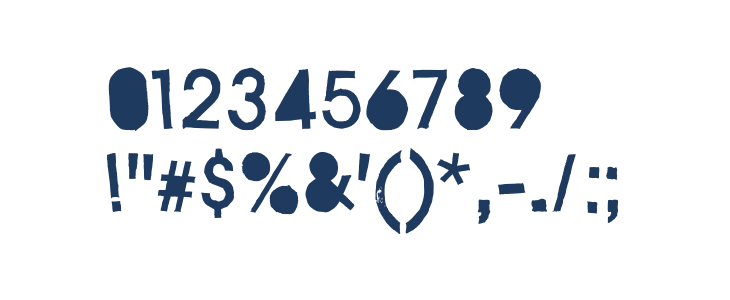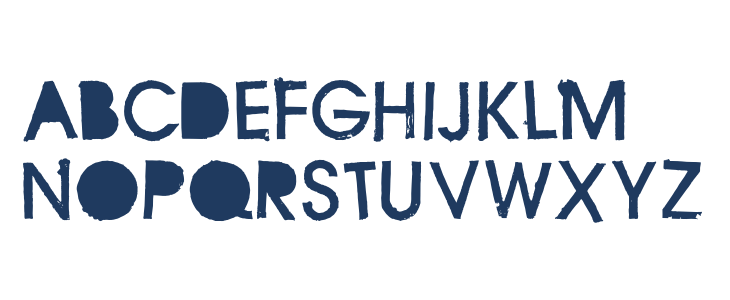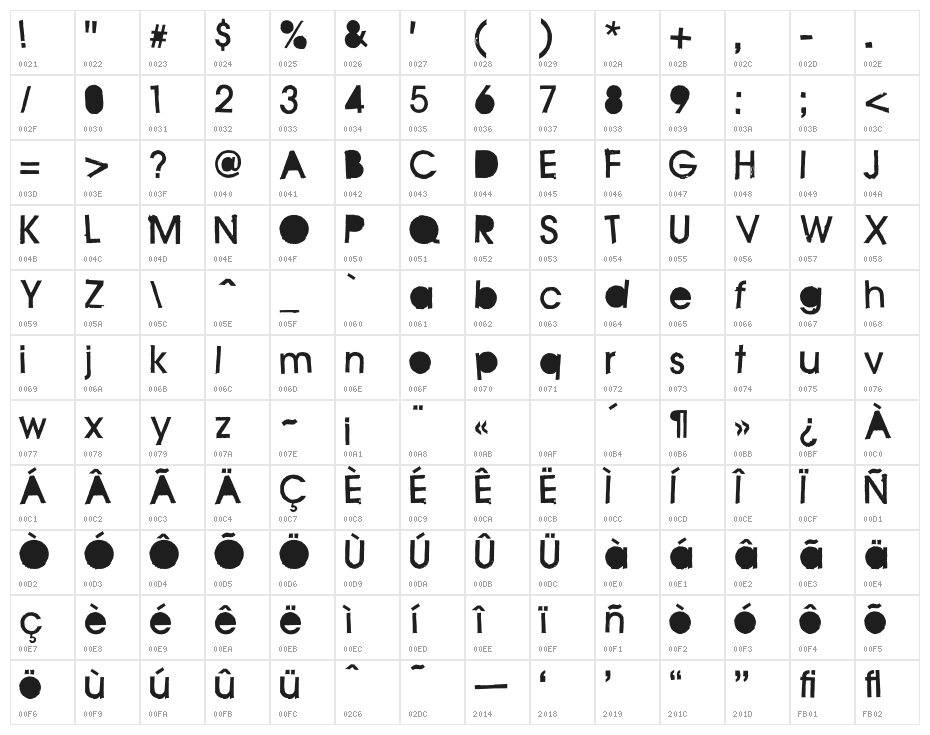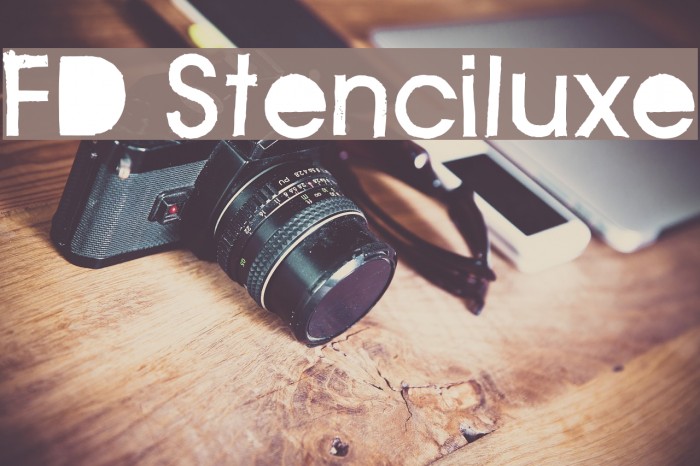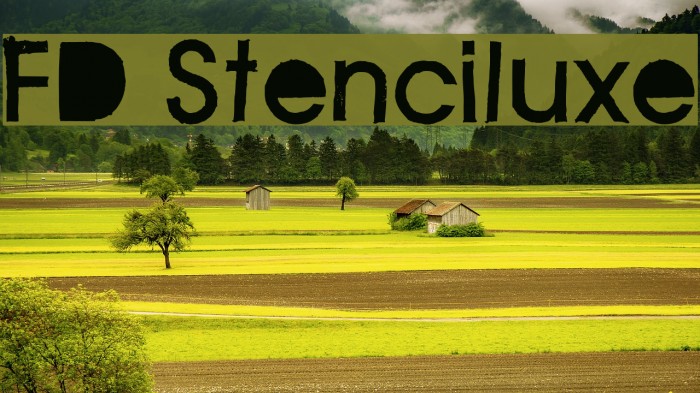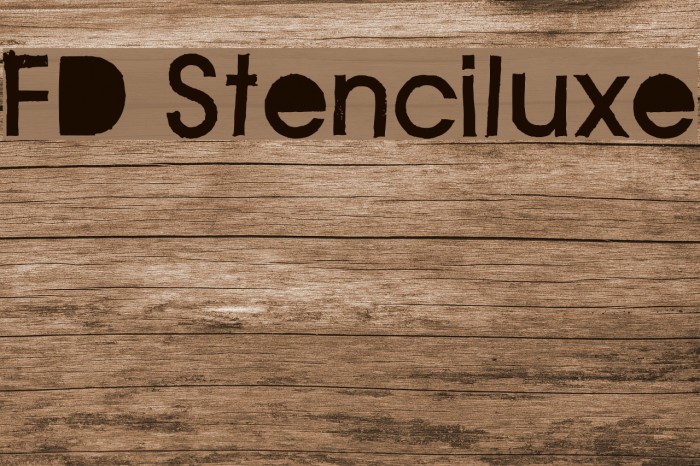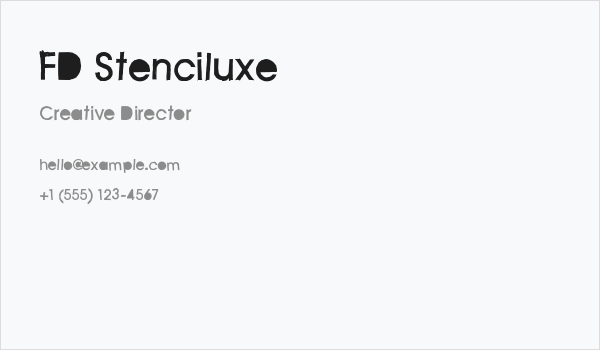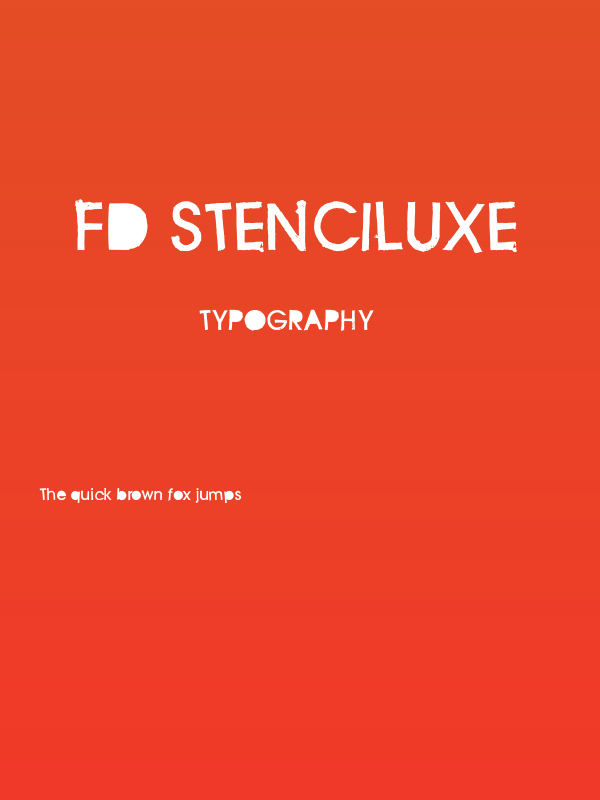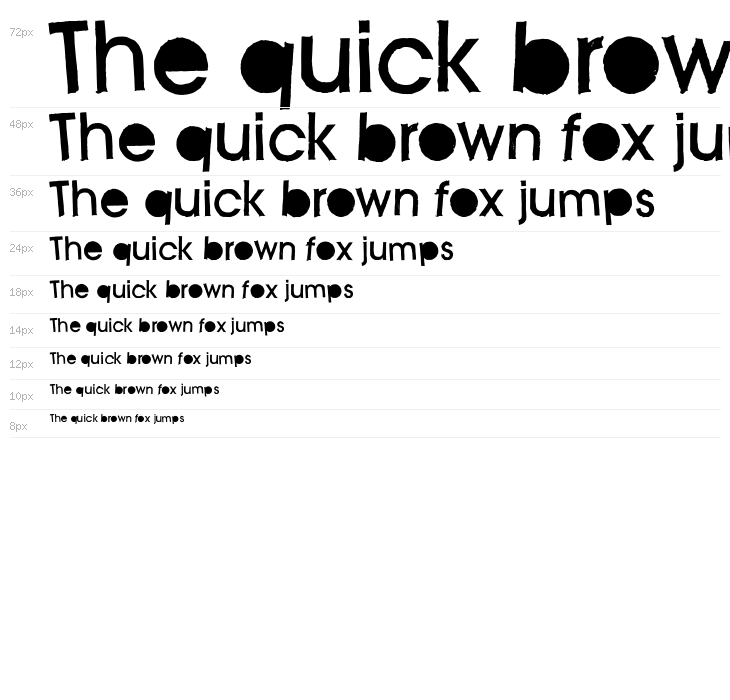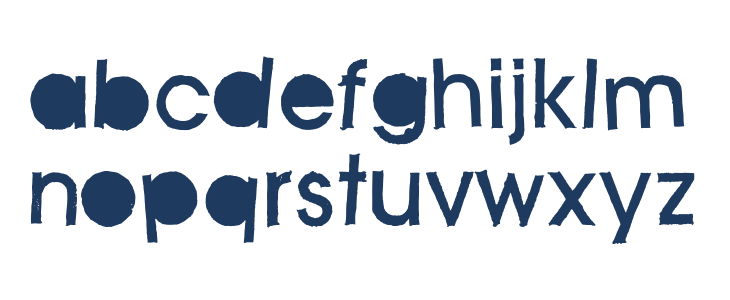
FD Stenciluxe Font
FD Stenciluxe Description
This font features a bold, stencil-like design with a rugged and industrial feel. The characters are distinctly cut with sharp edges and varying stroke widths, giving it a unique and eye-catching appearance. The uppercase letters are strong and assertive, while the lowercase letters maintain a consistent style with a slightly softer edge. Numbers and special characters follow the same stencil theme, making them ideal for attention-grabbing designs. The font's rough texture adds a tactile quality, enhancing its visual impact.
| Overall Style | Industrial, Rugged, Bold |